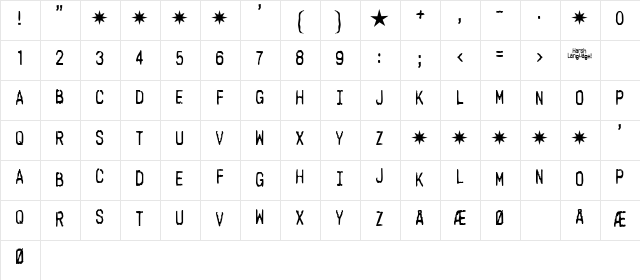
Harsh language AC Regular
Design Context for Harsh language AC
Harsh language AC is a composed and adaptable typeface that performs quietly and consistently across a wide range of design contexts.